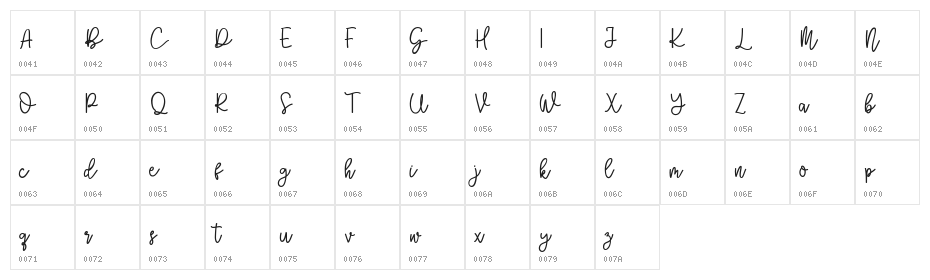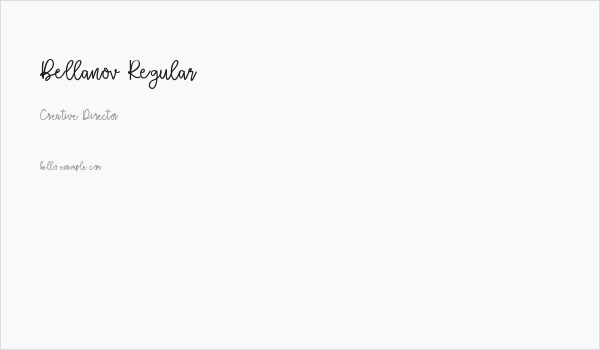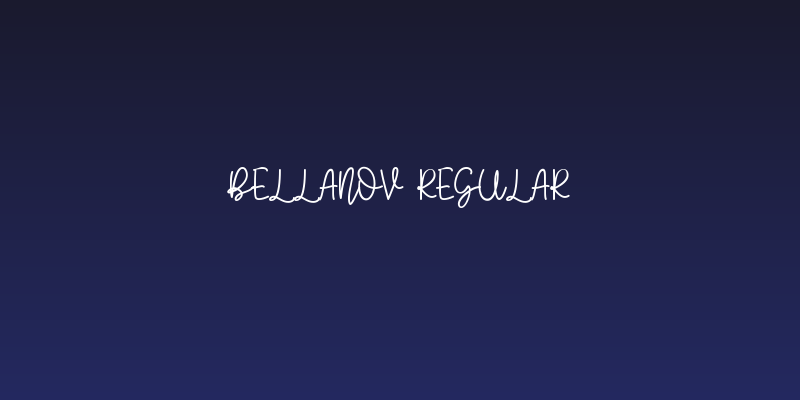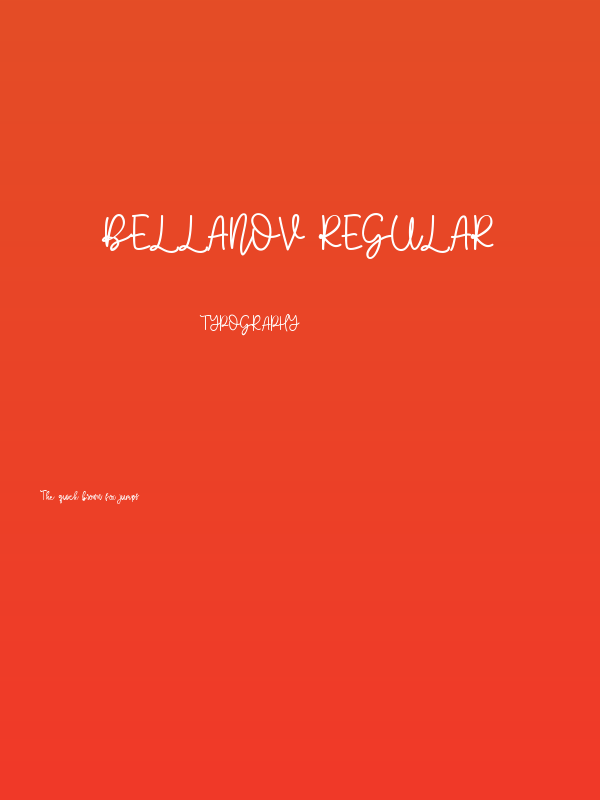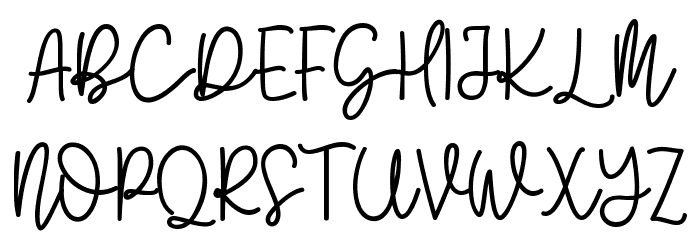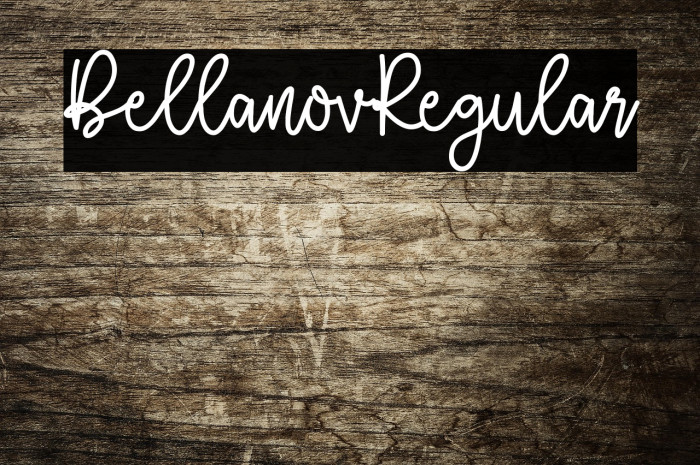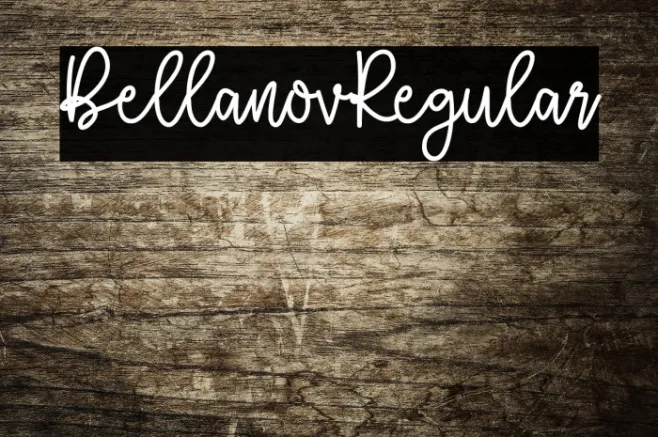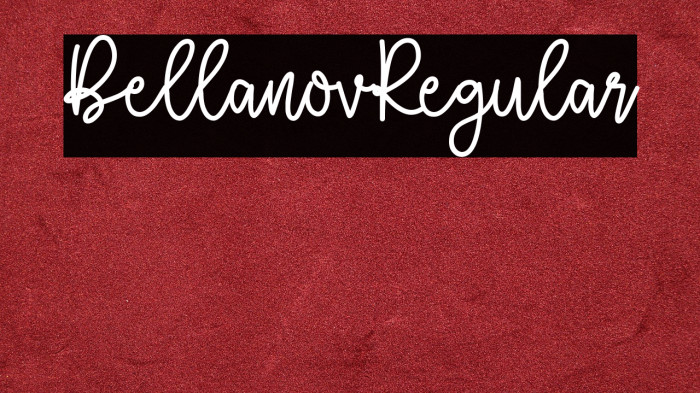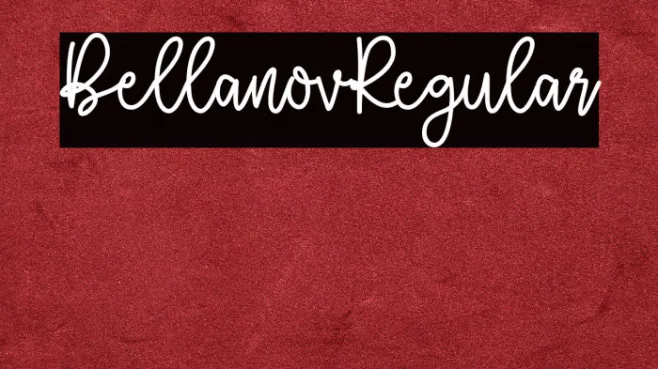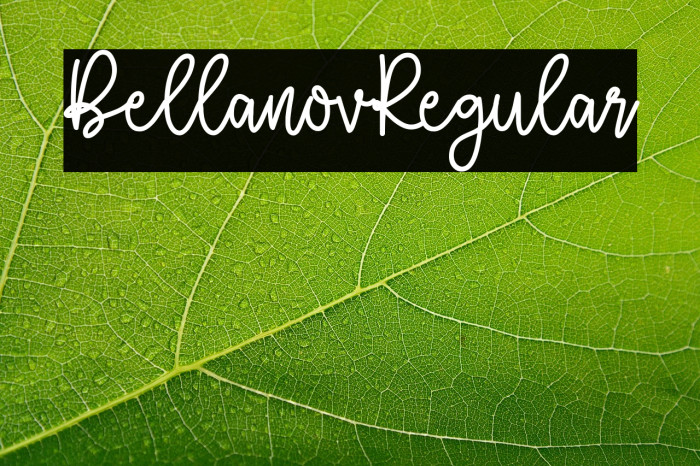
Bellanov-Regular Font
Bellanov-Regular Description
This font features a playful and modern handwritten style, characterized by its fluid and connected letterforms. The strokes are smooth and consistent, giving it a casual yet elegant appearance. It maintains a balanced rhythm throughout, with each character flowing seamlessly into the next. The uppercase letters are bold and prominent, while the lowercase letters are more delicate, adding a touch of sophistication. The font's overall design is versatile, making it suitable for a variety of creative projects. Its unique style can add a personal touch to any design, making it stand out.